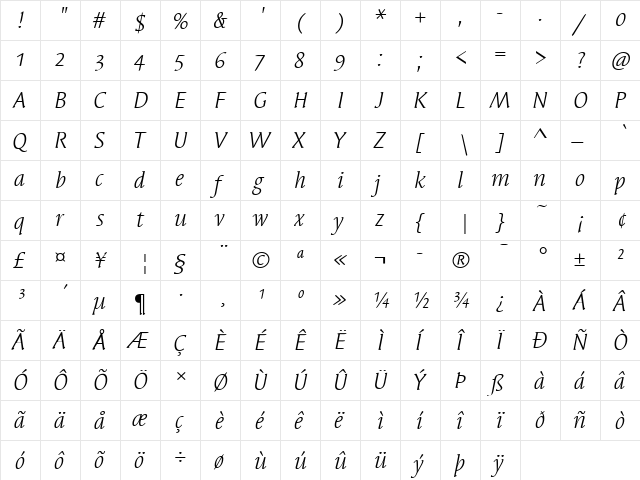
SyndorOSITC Italic
Design Context for SyndorOSITC Typeface
SyndorOSITC offers clean, dependable letterforms without strong stylistic allegiance, making it a practical choice for designers who need flexibility. The dynamic lean of this cut emphasises speed and emphasis in any layout.